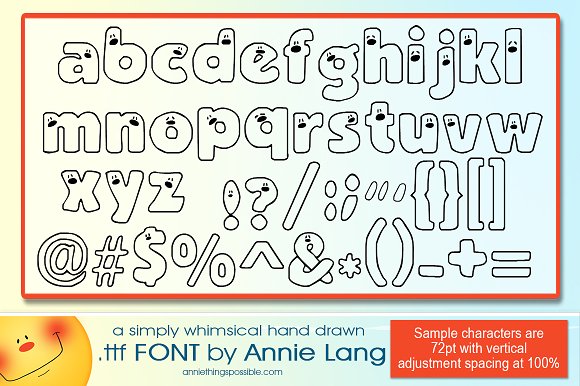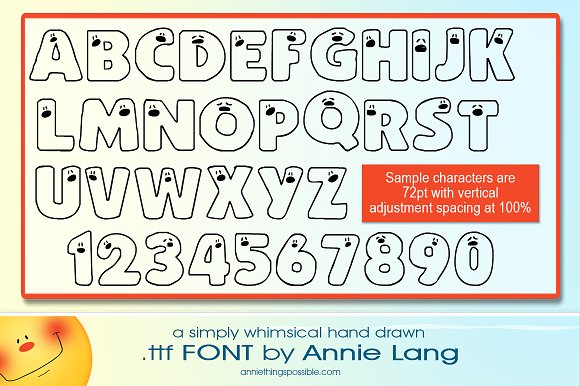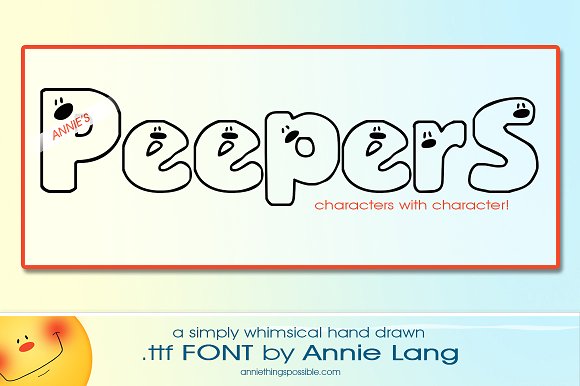
Annie’s Peepers Font
Annie’s whimsically hand rendered character font lends itself perfectly to children’s printables, comical inspirations, baby necessities, playroom novelties and any projects where a giggle is needed. This simple font was originally created as a .ttf vector font that I’ve used to create rasterized color wordart elements for commercial textile prints, baby wearables, book illustrations, day care logos, children’s alphabet flashcards, decorative painting nursery items, and scrapbooking clipart. This peepers font literally has characters with character!